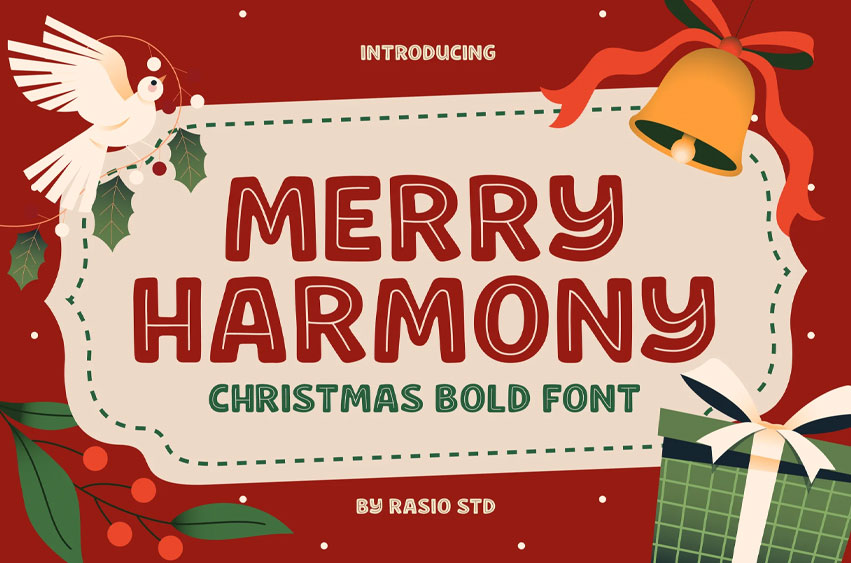
Merry Harmony Font
Merry Harmony Font is a modern serif typeface designed with elegant aesthetics and balanced proportions, seamlessly blending classic beauty with contemporary style. Each character is crafted with meticulous precision, featuring high‑contrast strokes, smooth terminals, and gentle curves that create a visually engaging rhythm while remaining highly readable. The font includes uppercase and lowercase letters, numerals, punctuation, symbols, and extensive multilingual support to meet global communication needs.
Relevance and Use Cases is perfect for arge display headlines, elegant editorial layouts, and body text that demands both style and functionality. This typeface is ideal for editorial design, luxury branding systems, premium invitations and event materials, as well as print and digital applications that call for a polished, professional visual voice.